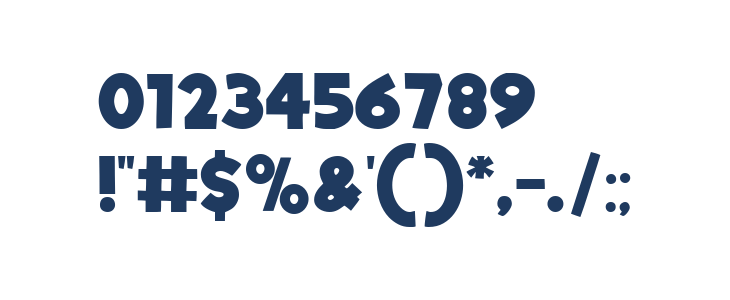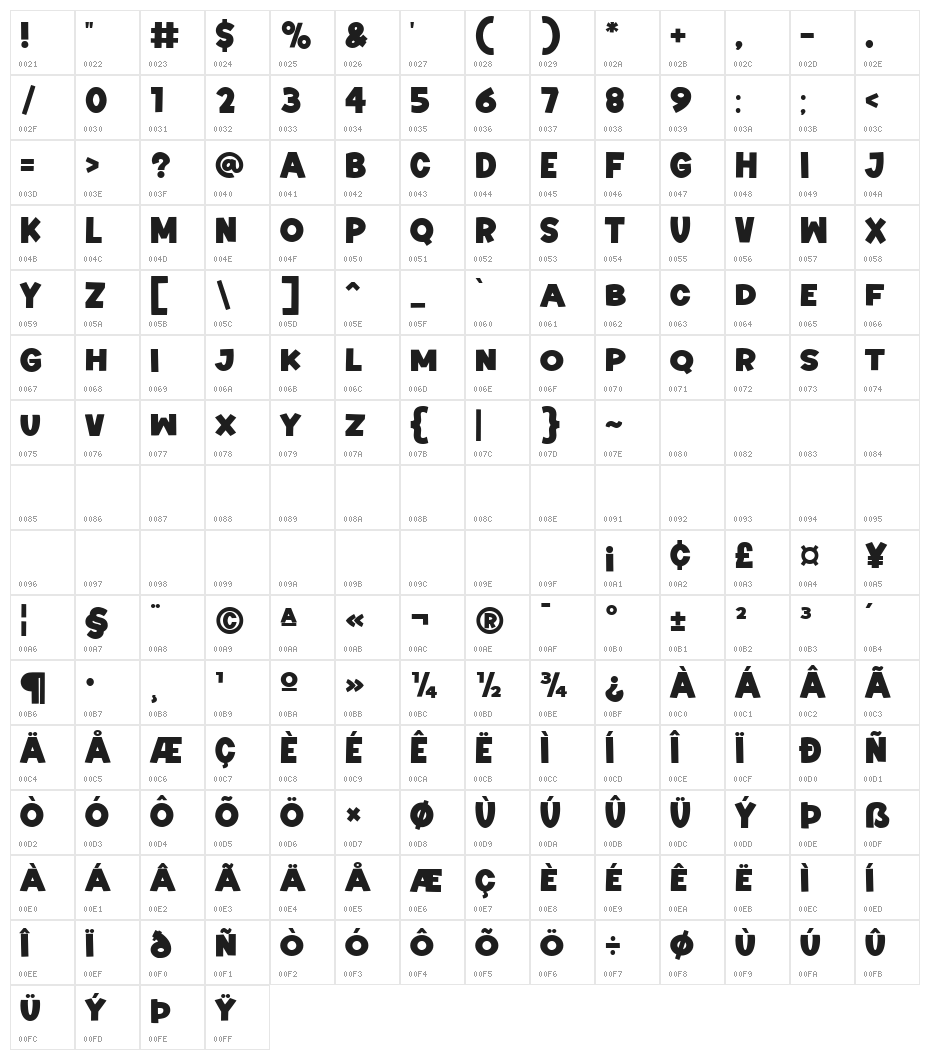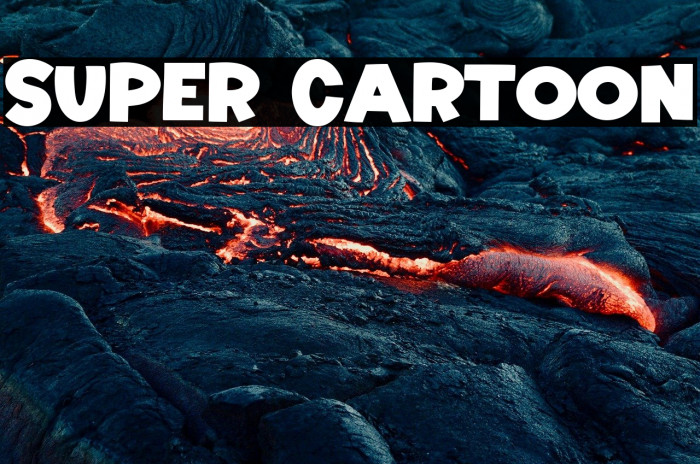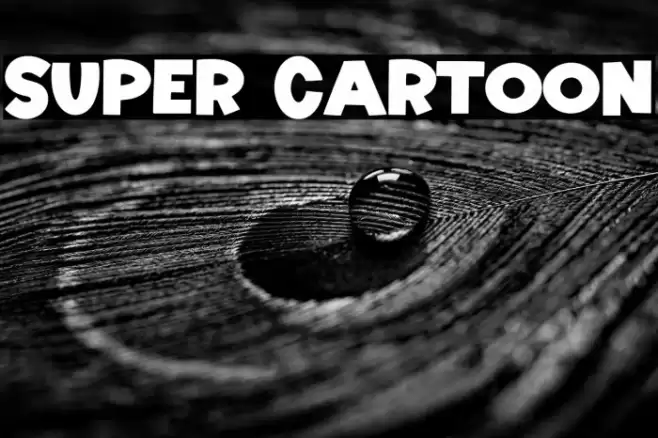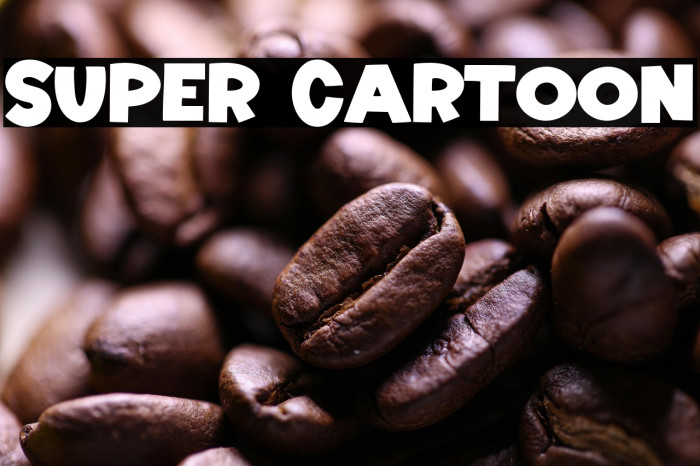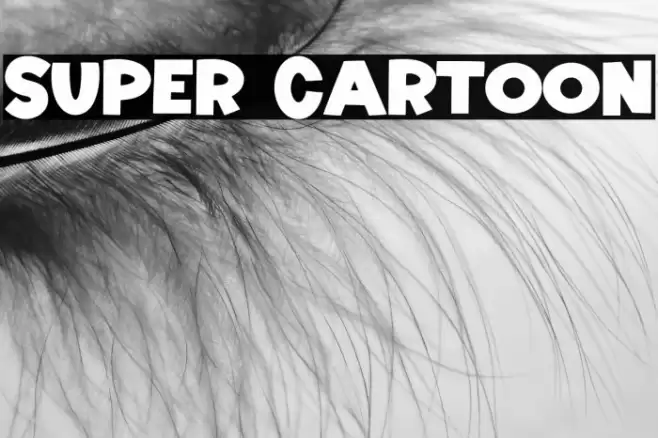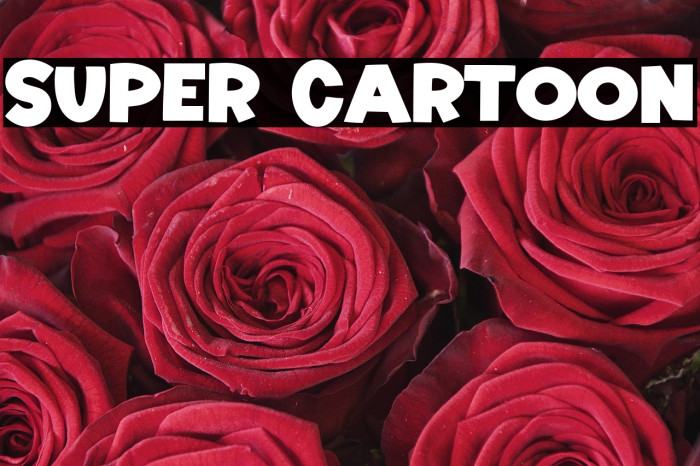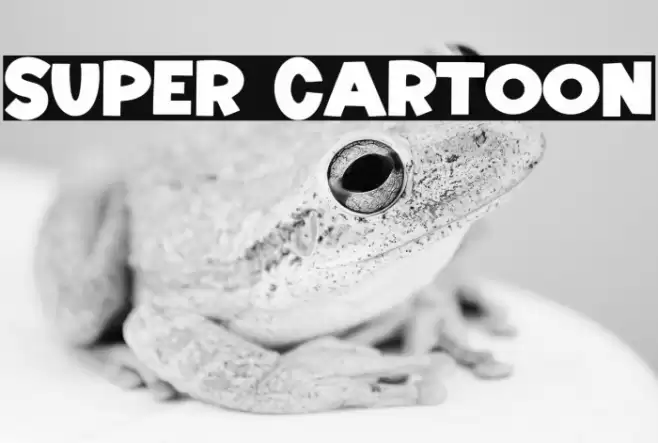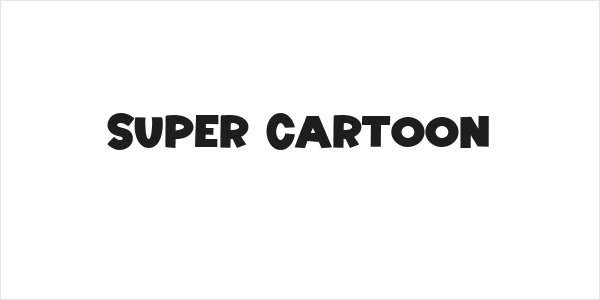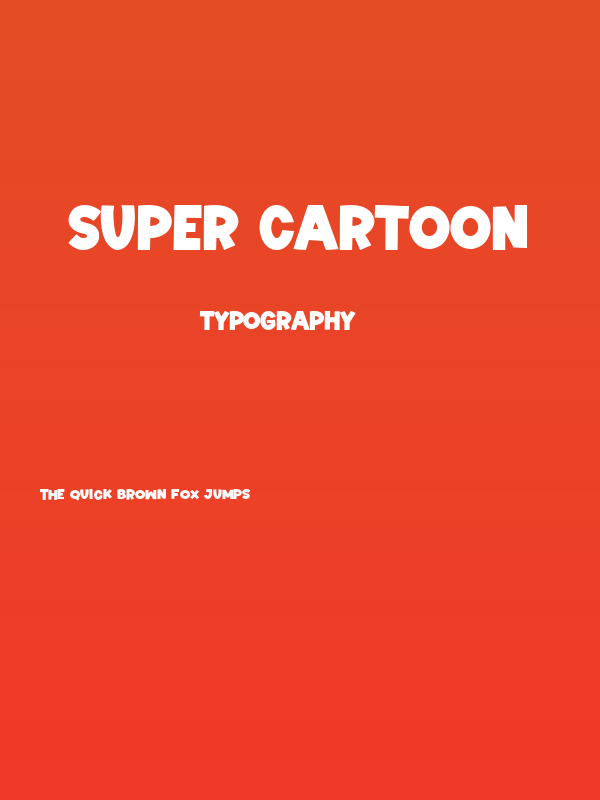
Super Cartoon Font
Super Cartoon Description
This font exudes a playful and bold character, perfect for capturing attention with its thick, exaggerated strokes and whimsical design. The letters are rounded and slightly irregular, giving them a cartoonish and fun appearance. The uppercase and lowercase letters maintain a consistent style, with a strong emphasis on curves and exaggerated angles. The numbers and special characters follow the same playful theme, making them ideal for creative projects. The overall look is dynamic and energetic, suitable for designs that aim to convey a sense of fun and excitement.
| Overall Style | Cartoonish, Playful |
| Proposed Projects | Ideal for children's books, comic strips, playful branding, and animated video titles. |